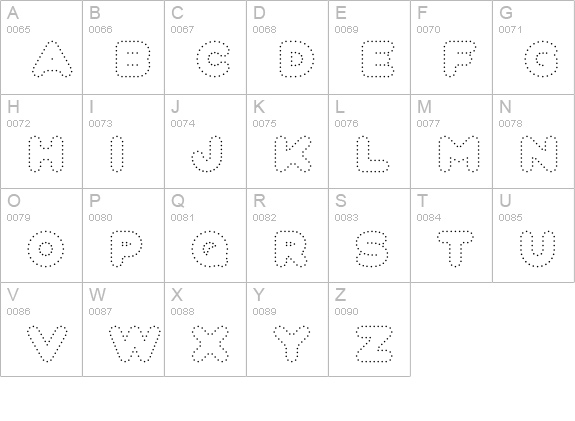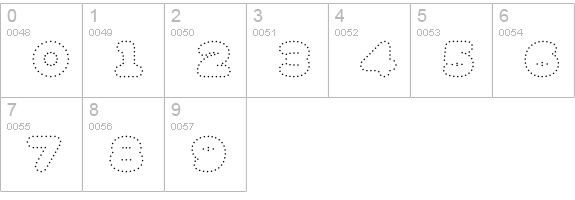
Fun City Level 4 Dots Font Details
Fun City Level 4 Dots font is a playful and vibrant typeface that adds a fun and energetic touch to any design project. With its unique dot pattern and bold appearance, this font is perfect for creating eye-catching headlines, posters, and branding materials. The free-spirited nature of Fun City Level 4 Dots font makes it ideal for projects that require a sense of excitement and creativity. This font is freely available for download at FontsMarket.com, where you can easily access and start using it in your designs. Whether you're working on a project for a children's event, a party invitation, or simply want to inject some fun into your designs, Fun City Level 4 Dots font is a great choice. Let your imagination run wild with this free and lively typeface that is sure to make your designs stand out!